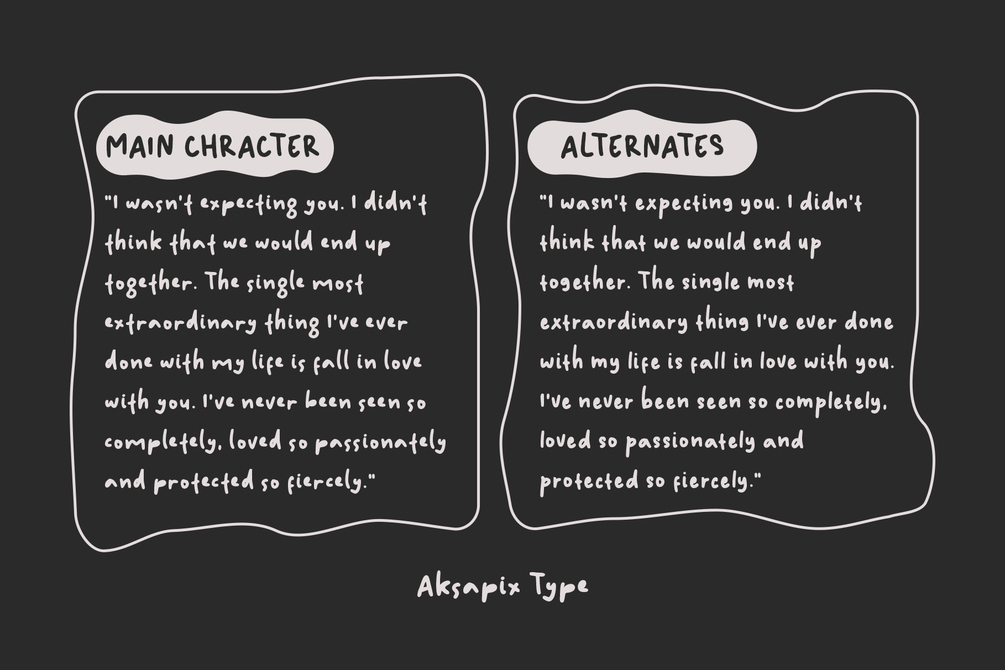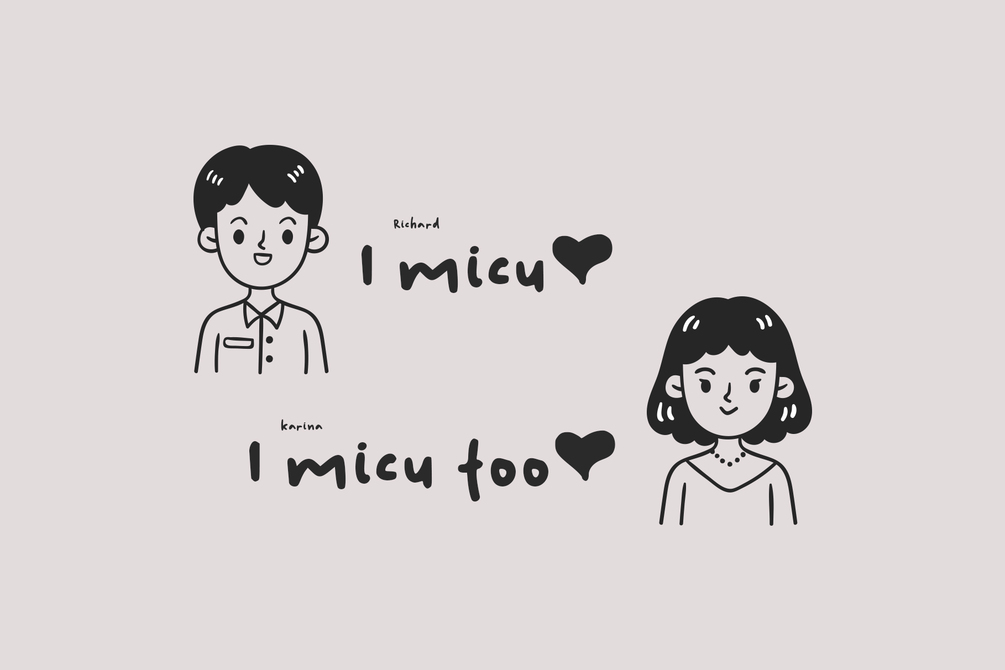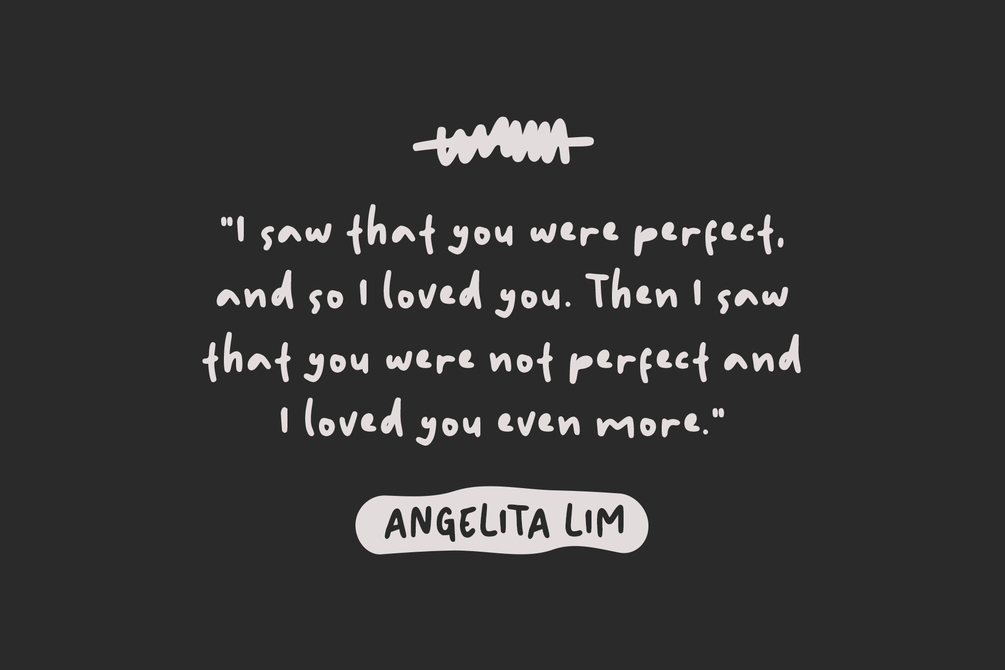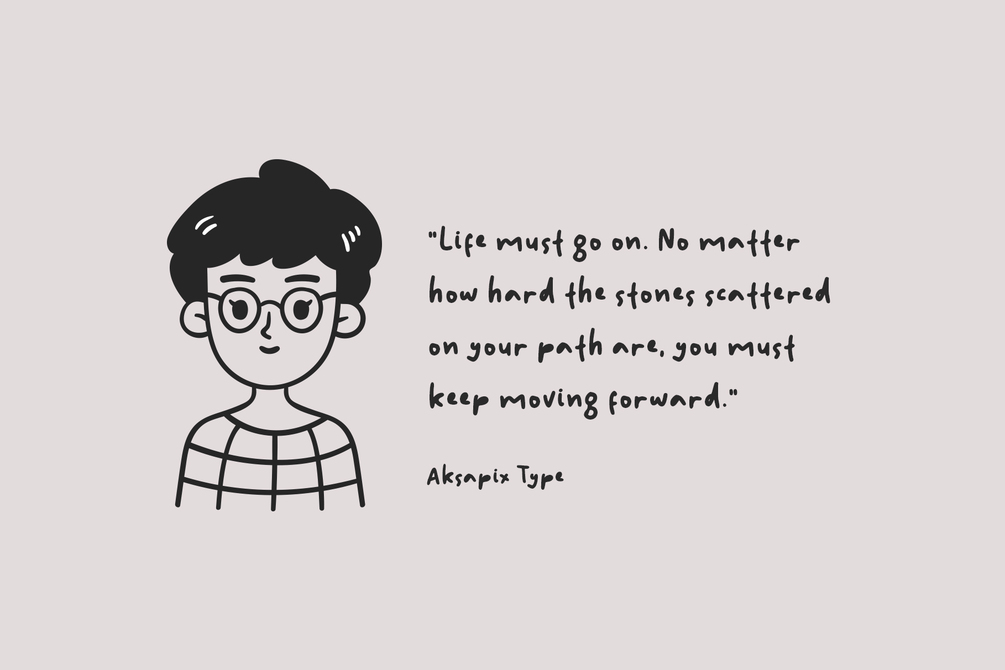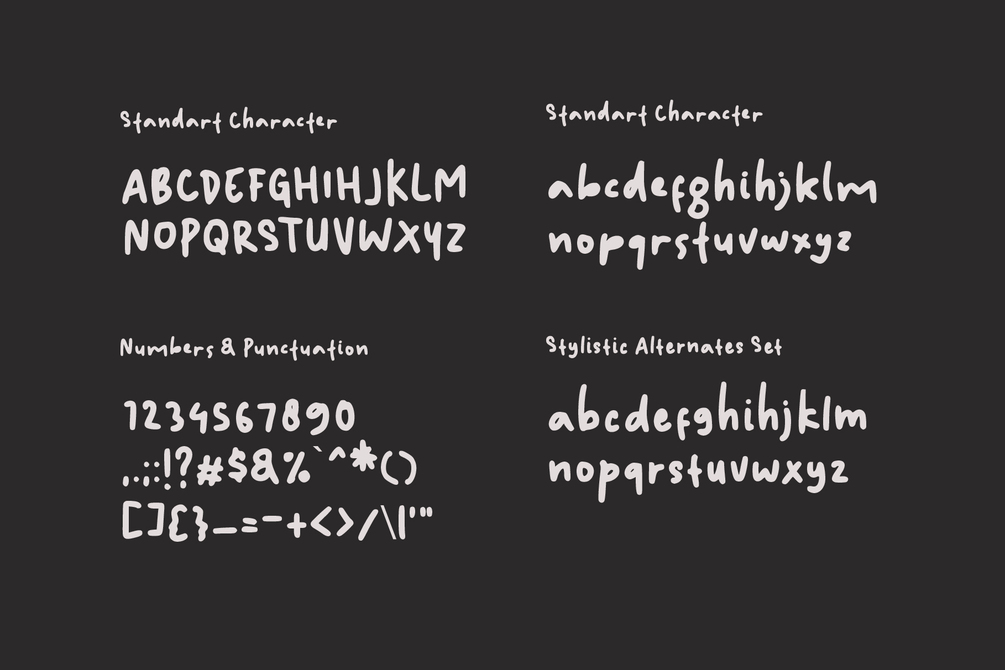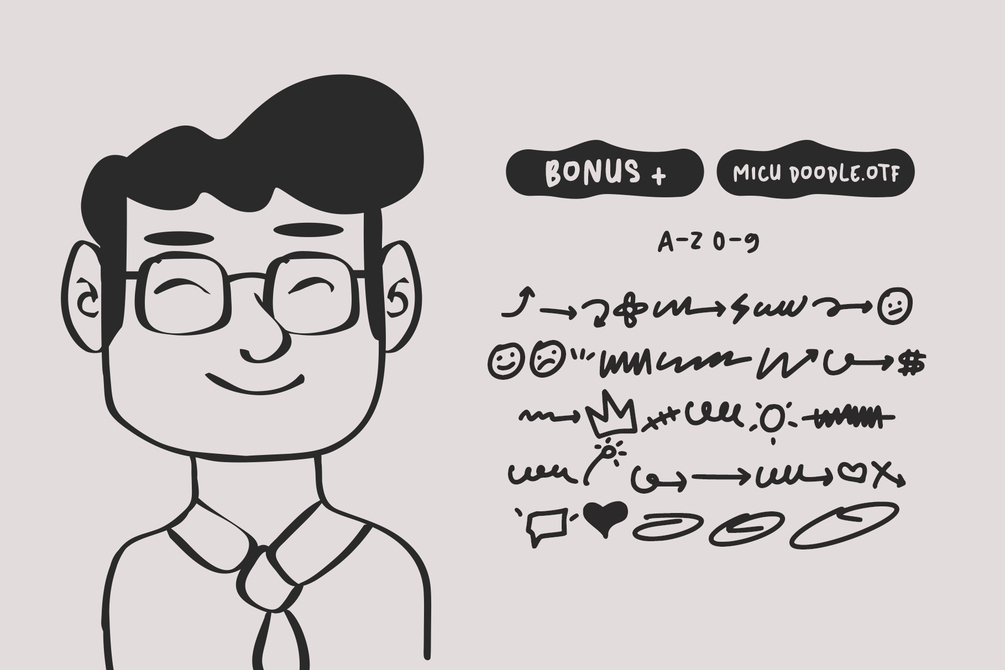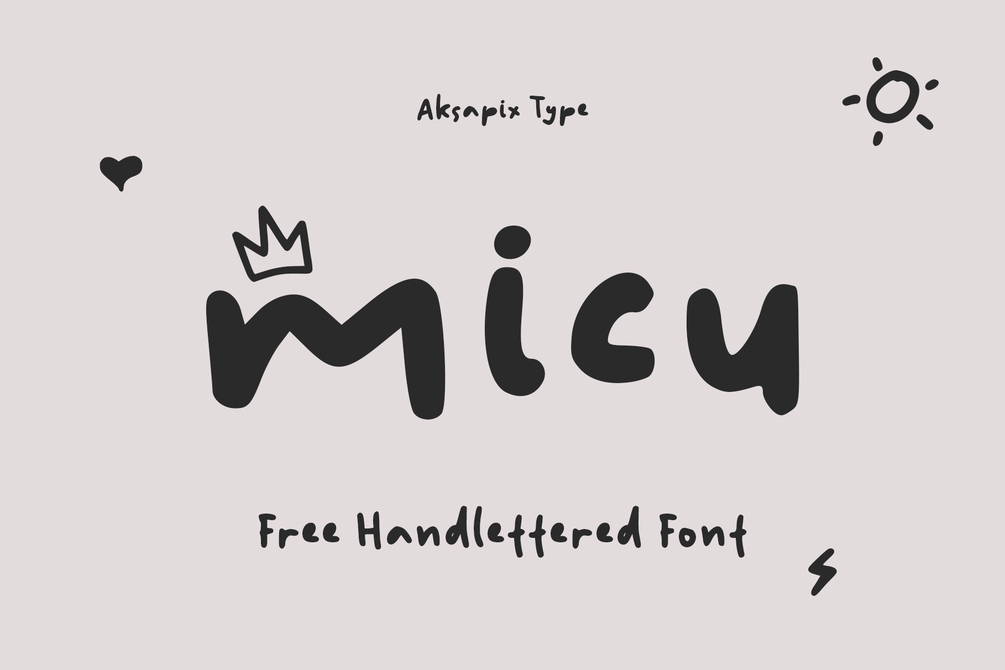
Micu - Handlettered Font (FREE)
Introducing Micu - Handlettered Font, a charming and versatile typeface that brings a personal touch to your designs. Micu’s handcrafted appearance adds warmth and authenticity, making it perfect for a variety of creative projects. This font includes a full set of standard characters (uppercase, lowercase, numbers, and punctuation) and offers multilingual support, ensuring its adaptability across different languages and design needs.
Key Features:
• Standard Characters: Includes uppercase, lowercase, numbers, and punctuation for all your design requirements.
• Multilingual Support: Ensures your text is beautifully rendered in multiple languages.
Perfect For:
• Wedding Invitations
• Greeting Cards
• Logo Design
• Social Media Graphics
• DIY Projects
Add a touch of handcrafted elegance to your work with Micu - Handlettered Font. Whether you’re designing heartfelt wedding invitations, charming greeting cards, or eye-catching social media posts, Micu enhances your creations with its unique and personal style.